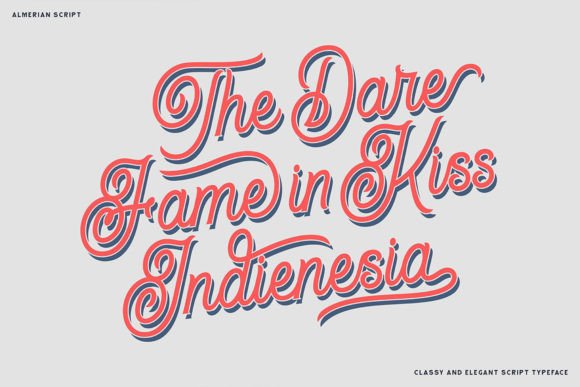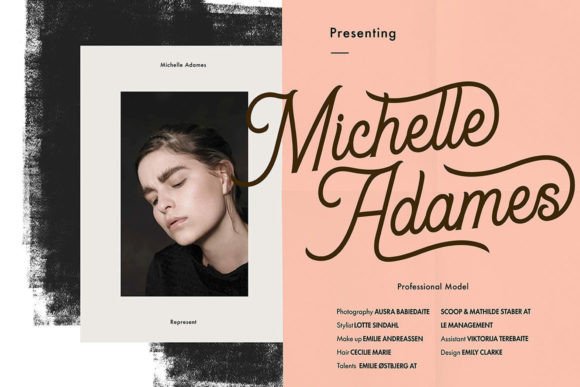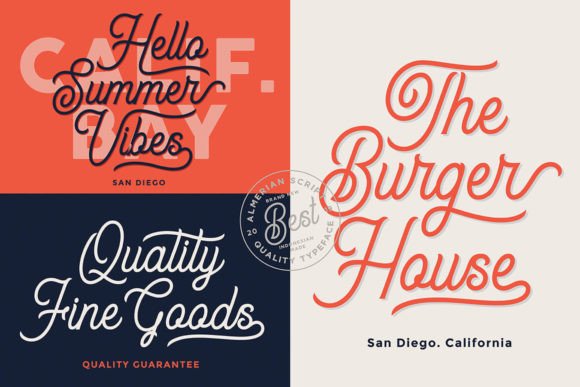
Almerian Font
Almerian is a vintage script font is the epitome of style and sophistication. Its beautifully crafted curves and flourishes evoke a sense of timeless charm, while the vintage-inspired lettering adds a touch of classic elegance. Perfect for designs that require a touch of vintage flair with a modern twist.